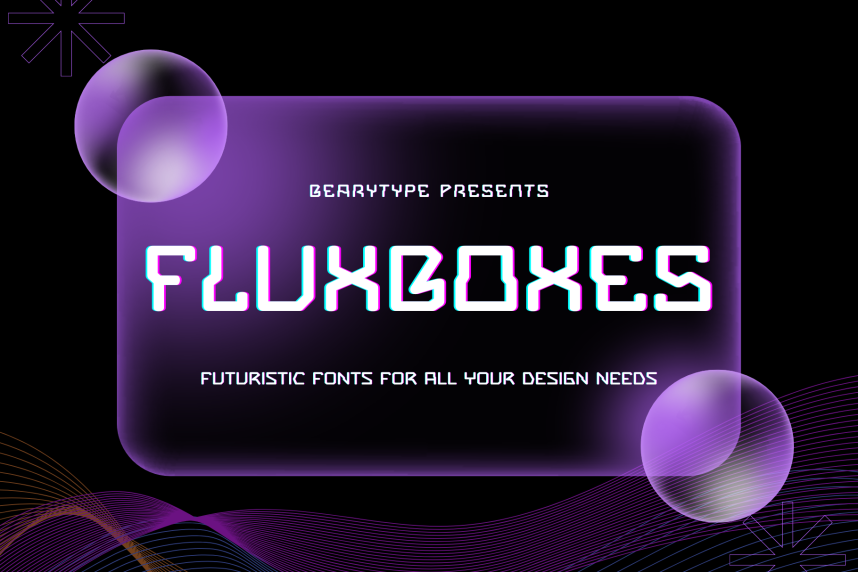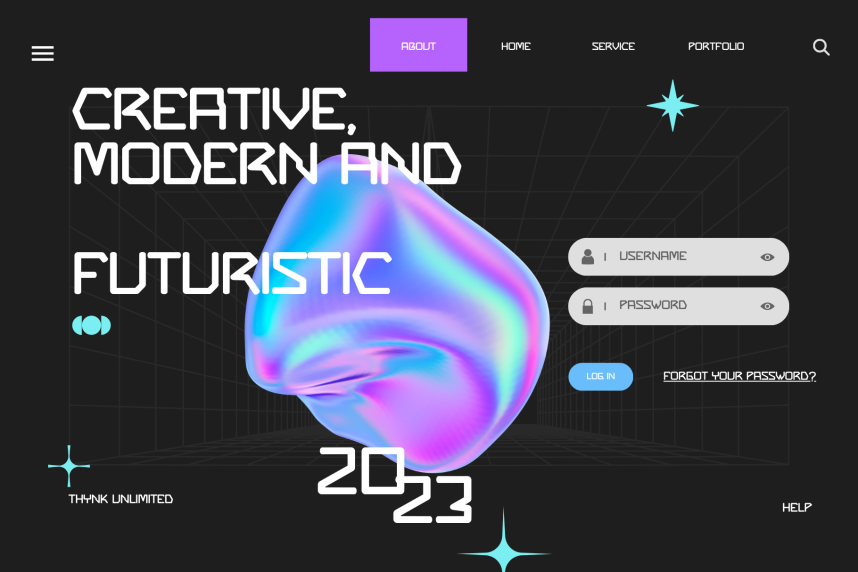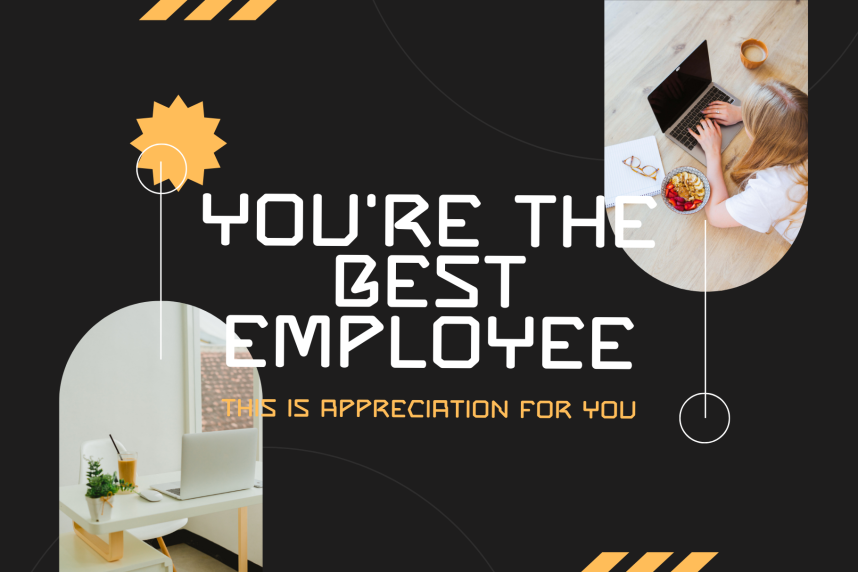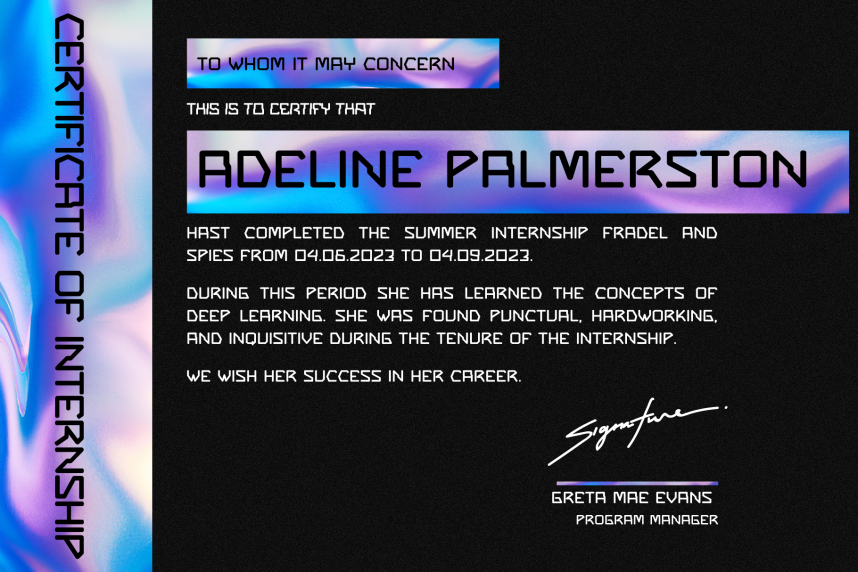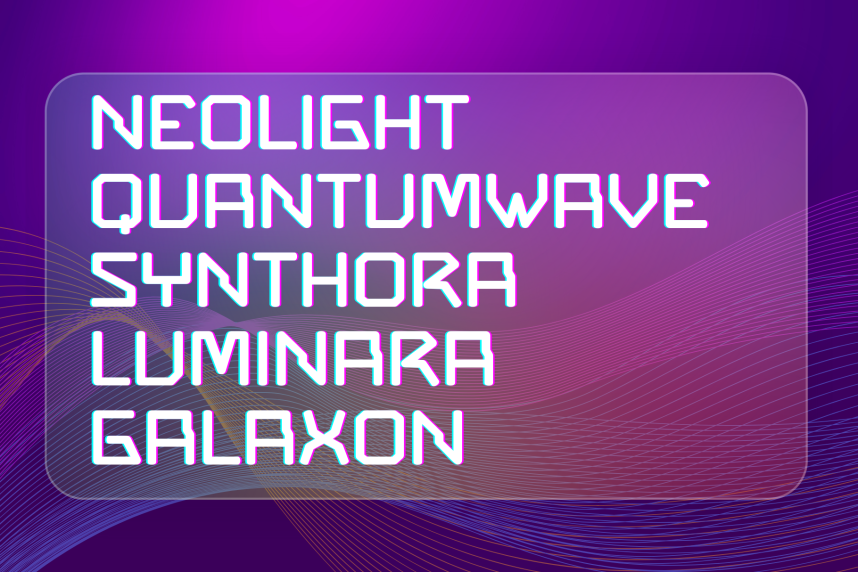
FluxBoxes Futuristic Font
FluxBoxes Futuristic Font — a forward-thinking typeface built for tomorrow’s design. With sleek lines and bold geometric forms, FluxBoxes transforms basic visuals into high-impact designs. Whether you’re creating UI interfaces, posters, tech branding, or digital layouts, this font delivers a perfect balance of innovation and precision.